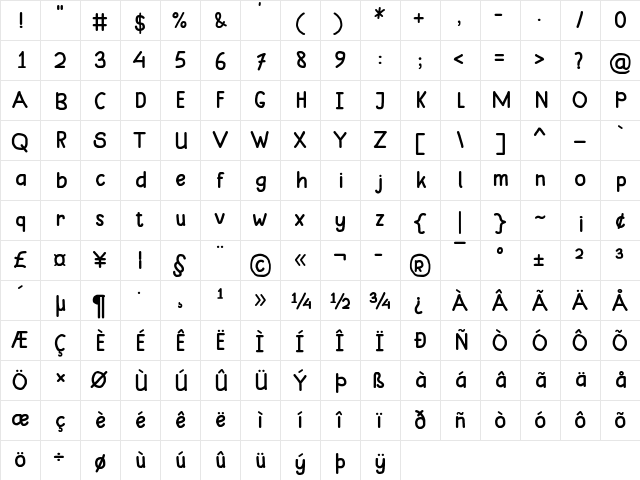
Mungkin Regular
Design Context for Mungkin Typeface
Mungkin is a composed and adaptable typeface that performs quietly and consistently across a wide range of design contexts.